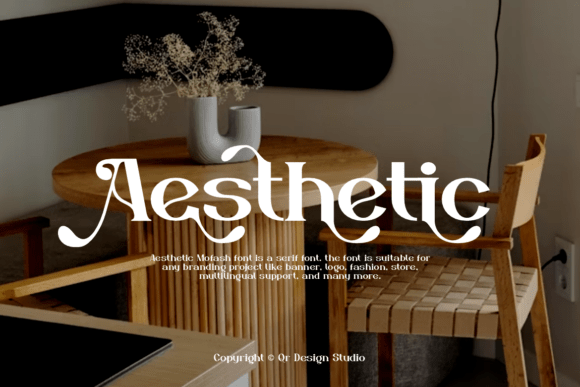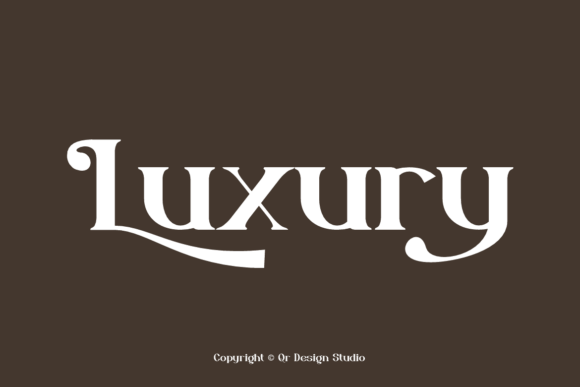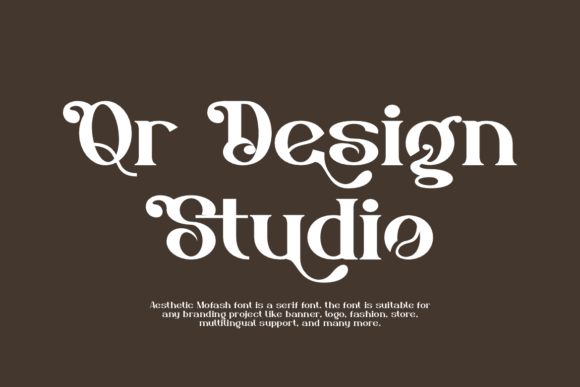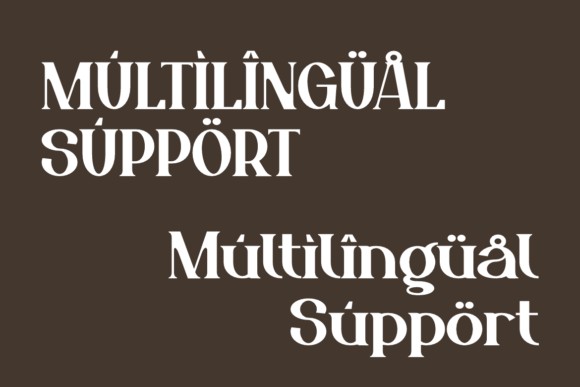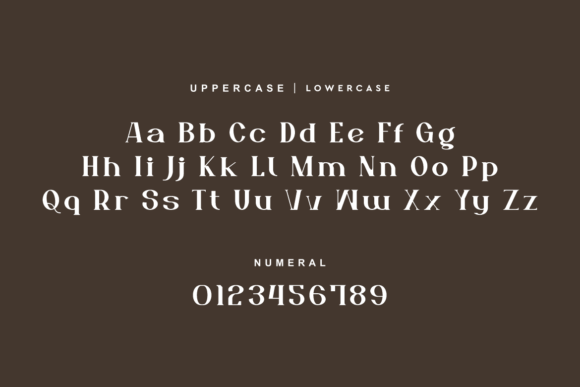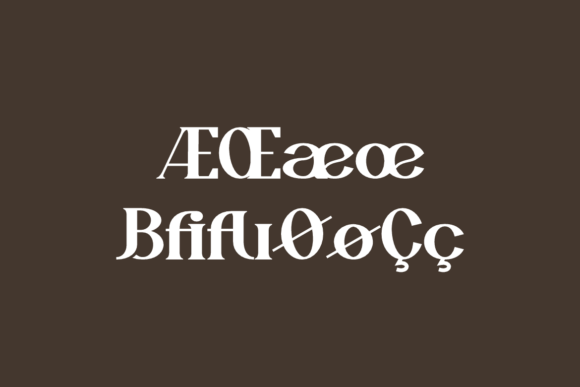
Aesthetic Mofash Font: Elevate Your Design with Luxury and Elegance
In the world of typography, few fonts manage to strike a balance between elegance and playfulness. Aesthetic Mofash, a luxury bold serif display font, is one such gem that seamlessly blends fashion-house sophistication with a touch of whimsy. This stunning font is designed to make a statement, and in this article, we’ll delve into its unique features and explore how you can harness its power to elevate your designs.
The Anatomy of Aesthetic Mofash
Aesthetic Mofash boasts high contrast strokes that carve confident verticals, imbuing the font with a sense of poise and assurance. The smooth bracketed serifs are a masterful touch, blossoming into petal-like flares that add a delicate, refined quality to the overall design. One of the most distinctive features of Aesthetic Mofash is the swirling entry and exit strokes that weave through the forms, finishing in rounded ball terminals that echo the star accents. This thoughtful attention to detail creates a sense of movement and fluidity, setting the font apart from more staid serif designs.
Aesthetic Mofash’s design characteristics make it an incredibly versatile font, suitable for a wide range of applications. Some of its key features include:
- Open bowls: The font’s open bowls create a sense of airiness, allowing words to breathe and preventing the design from feeling too dense or heavy.
- Generous x-height: A generous x-height ensures that the font remains legible, even at larger sizes.
- Compact descenders: The compact descenders and tight rhythm of the font create a sense of poster-ready impact, making it perfect for headlines and titles.
Crafting a Luxurious Texture
The texture of Aesthetic Mofash is undoubtedly one of its most striking features. The font exudes a sense of chic sophistication, yet also possesses a dramatic flair that’s perfect for making a statement. This balance of elegance and drama makes Aesthetic Mofash an ideal choice for a variety of design applications, including:
- Logos: Create a luxurious brand identity with Aesthetic Mofash, perfect for high-end fashion, beauty, or lifestyle brands.
- Editorial titles: Add a touch of glamour to your editorial designs, such as magazine covers, article titles, or even book covers.
- Packaging: Elevate your packaging designs with Aesthetic Mofash, ideal for luxury product packaging or bespoke gift wrapping.
- Invitations: Make a statement with your event invitations, using Aesthetic Mofash to convey sophistication and refinement.
Tips for Working with Aesthetic Mofash
To get the most out of Aesthetic Mofash, consider the following tips:
- Track it tight: For a sumptuous, dense look, track the font slightly tight to create a sense of opulence.
- Give it air: Alternatively, give the font some breathing room to showcase the sweeping terminals and allow the design to shine.
Aesthetic Mofash is a true showstopper in the world of typography. Its unique blend of elegance, playfulness, and sophistication makes it an incredibly versatile font, suitable for a wide range of design applications. Whether you’re a designer, crafter, or simply someone who appreciates beautiful typography, Aesthetic Mofash is sure to captivate and inspire. With its luxurious texture, attention to detail, and flexibility, this stunning font is poised to elevate your designs to new heights.